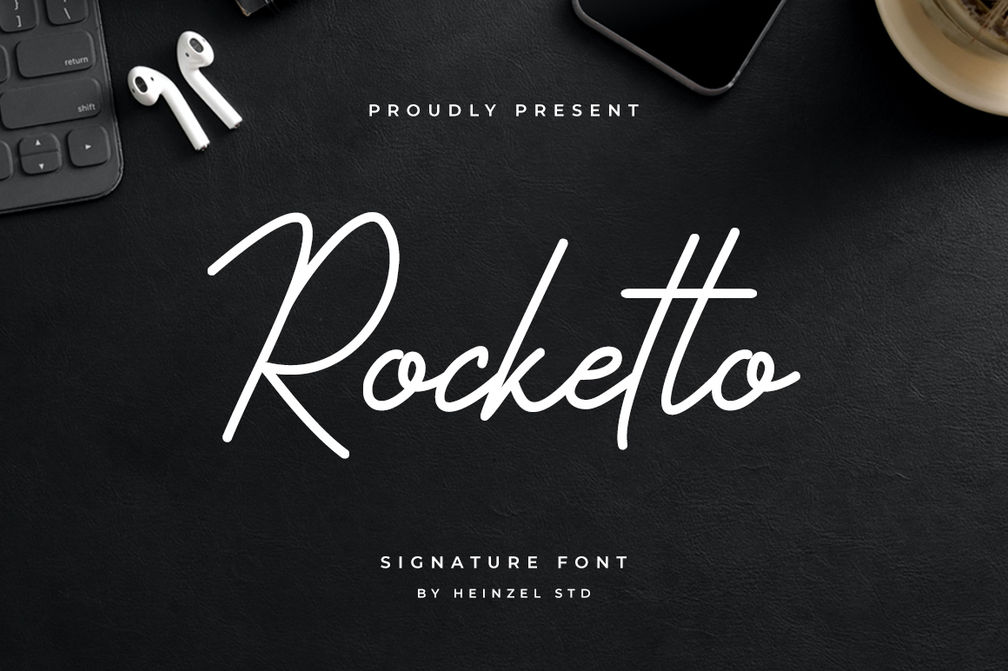
Rocketto – Modern Signature Script Font (2 Weights)
Rocketto is a stylish signature script font designed to bring a touch of elegance and personality to your creative projects. Featuring two versatile weights, Rocketto combines smooth handwritten strokes with modern charm, making it perfect for branding, logos, invitations, product packaging, social media posts, stationery, and more.
With its natural flow and balanced design, Rocketto creates an authentic handwritten feel while maintaining readability. It includes ligatures and multilingual support, ensuring flexibility for global designs. Whether you want a bold and confident look or a lighter, refined style, Rocketto gives you the tools to craft stunning typography.
Ideal for designers, entrepreneurs, and creatives looking to elevate their visual identity, Rocketto is more than just a font—it’s a signature of sophistication.